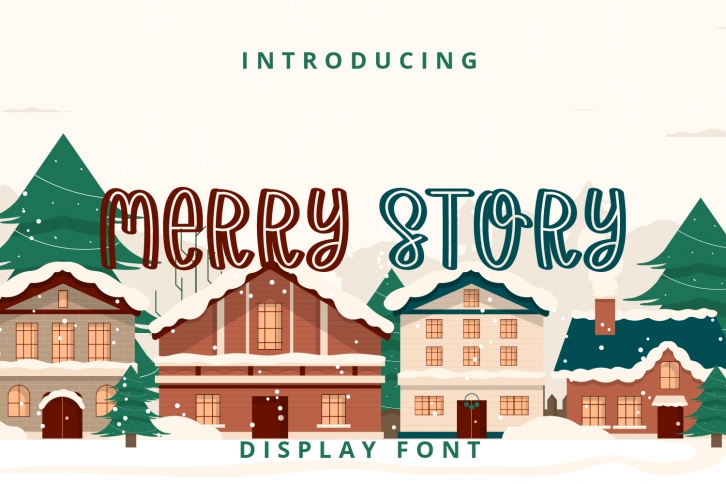
Merry Story is a cute and friendly display font. Whether you’re using it for crafts, digital design, presentations, or making greeting cards, this font has the potential to become your favorite font, no matter the occasion!